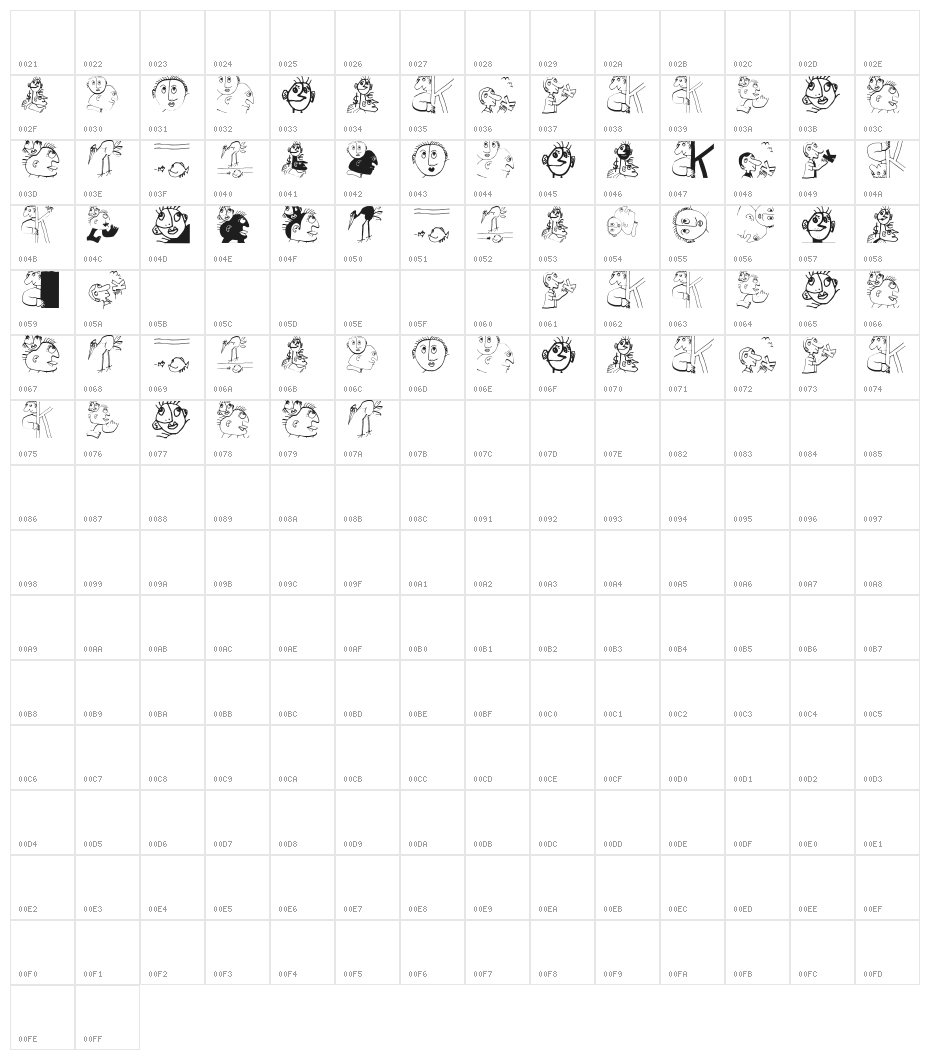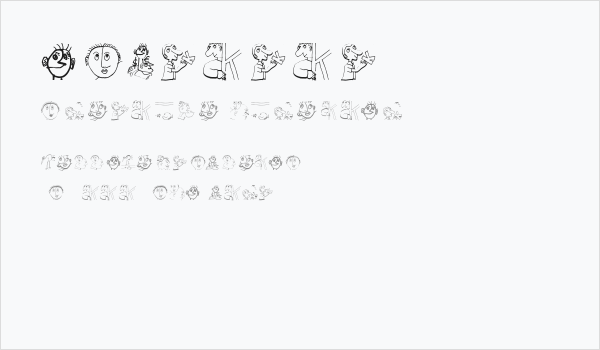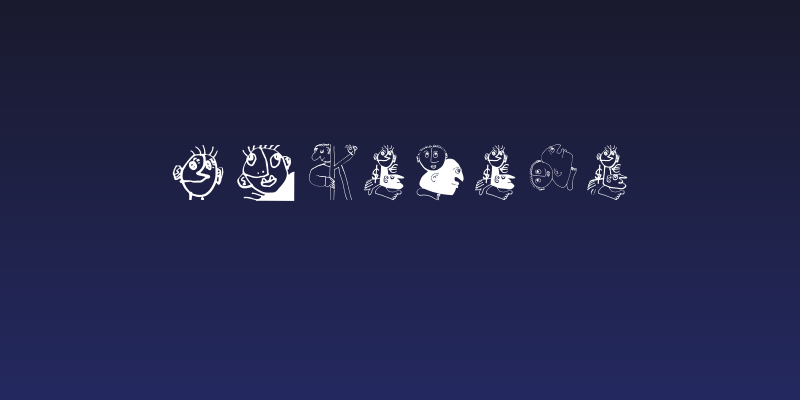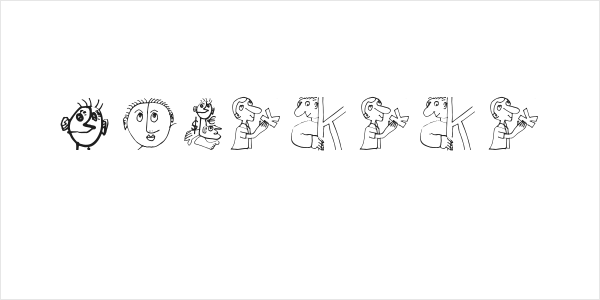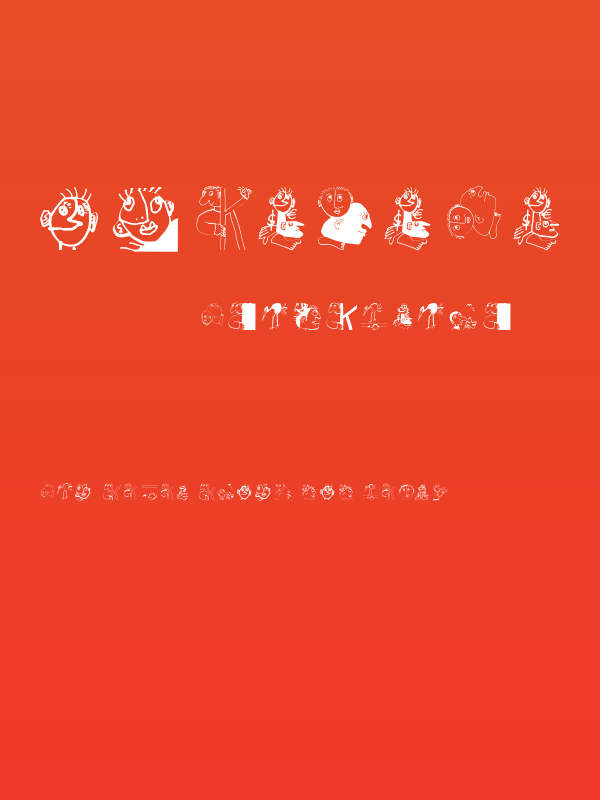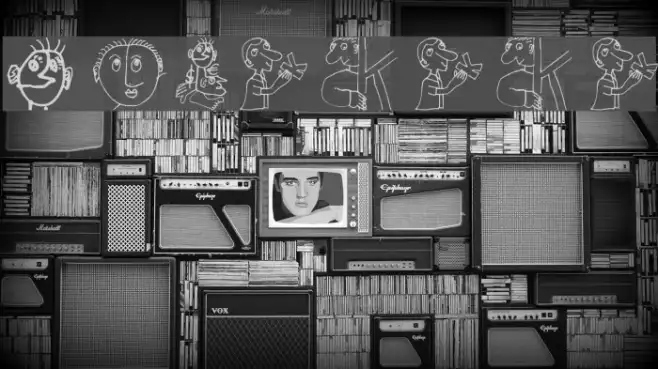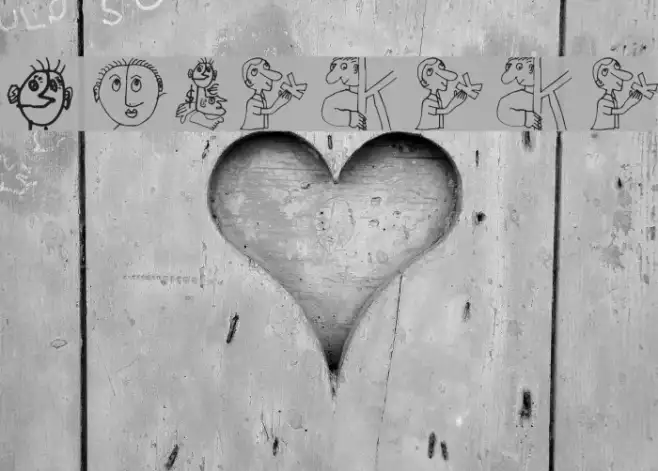
Emkabats Font
Emkabats Description
This font is a whimsical and playful collection of characters, each represented by a unique cartoonish illustration. The characters are creatively designed, incorporating elements of humor and imagination. Each letter and symbol is depicted through a distinctive drawing, often featuring exaggerated facial expressions and quirky poses. The overall design is highly decorative, making it suitable for projects that require a fun and artistic touch. The font is not meant for traditional text but rather for adding a unique visual element to creative works.
| Use Case | Logos, Posters, Artistic Designs |
| Proposed Projects | Ideal for children's books, comic strips, playful posters, and creative design projects. |